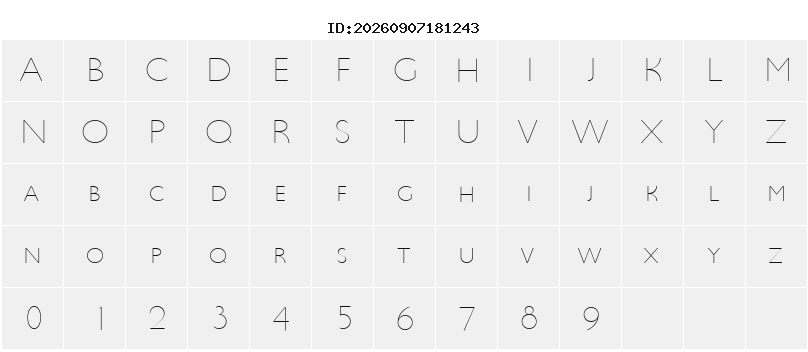
UltimaPDbc Preview
• Font Name: UltimaPDbc
• Font Style: UltraLightSmallCaps
• Full Font Name: UltimaPDbc-UltraLightSmallCaps
• PostScript Name: UltimaPDbc-UltraLightSmallCaps
• Manufacturer: Prescott Design
About UltimaPDbc.ttf
UltimaPDbc.ttf is a modern, elegant sans-serif font designed for ultimate readability and visual harmony. Perfect for branding, headlines, web design, and print materials.